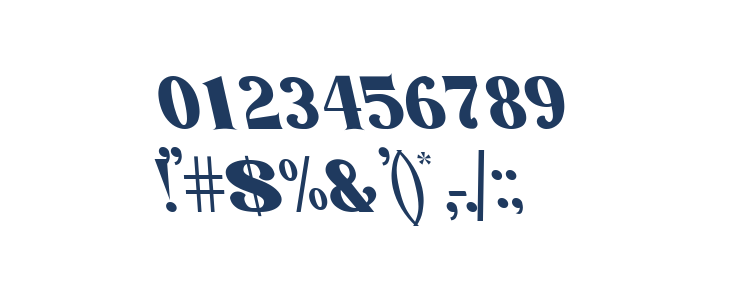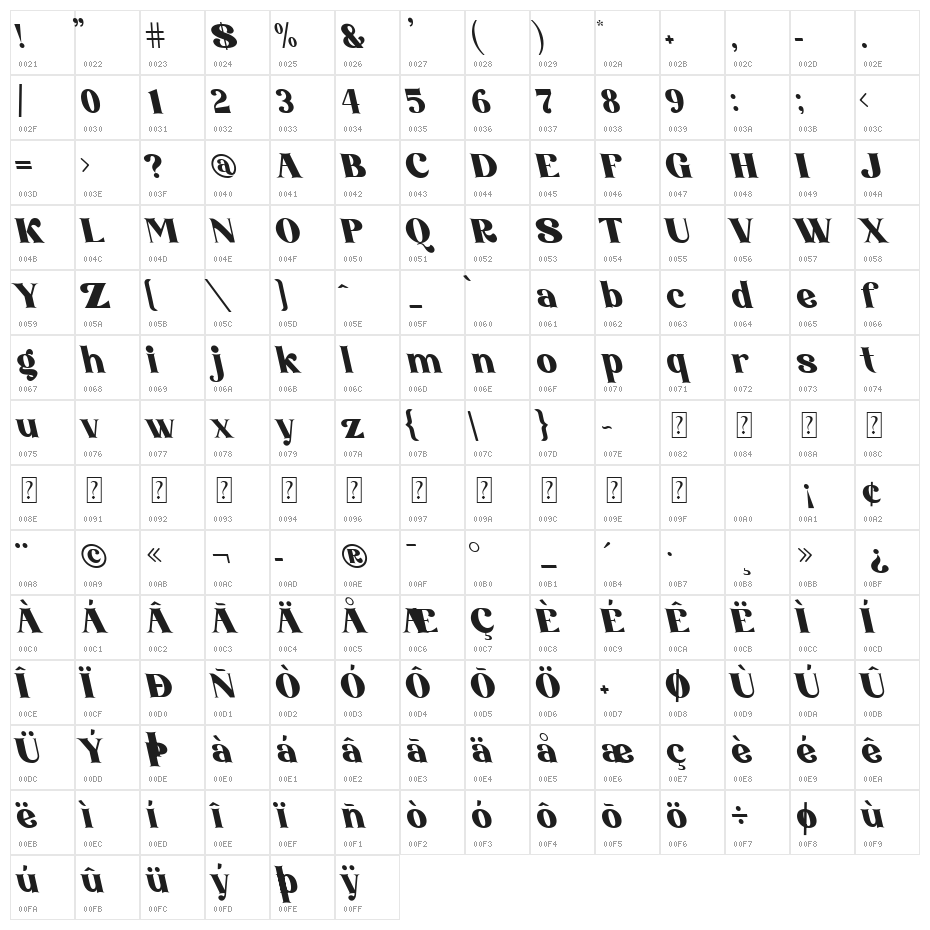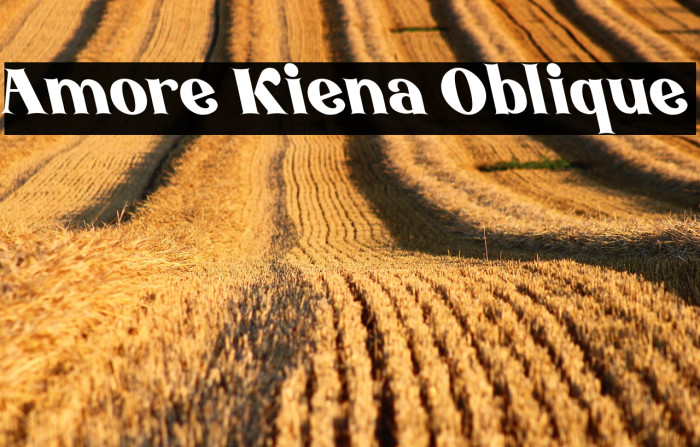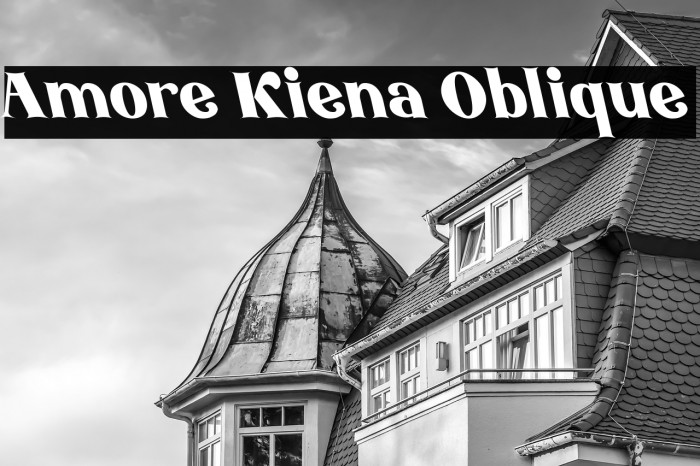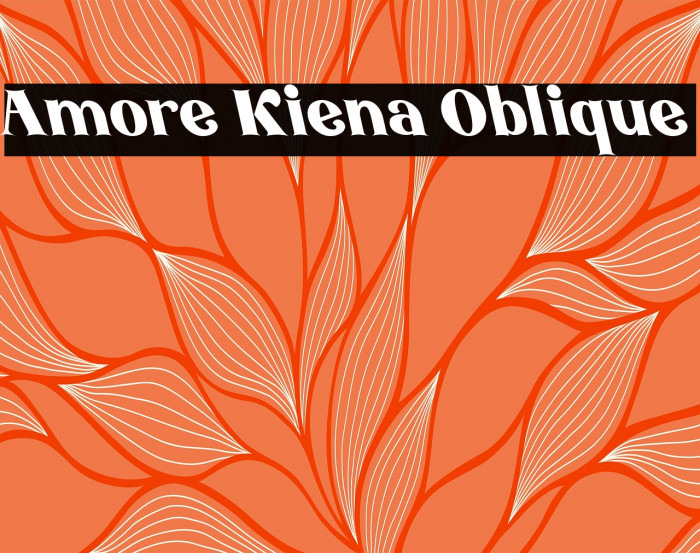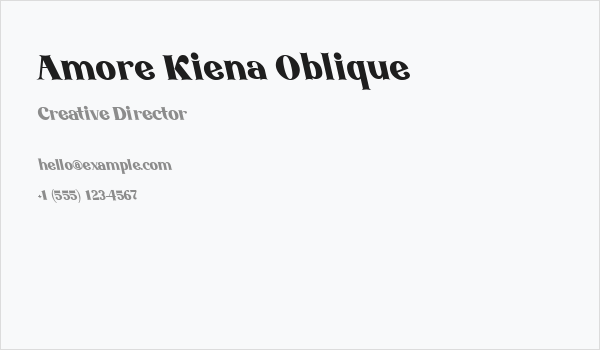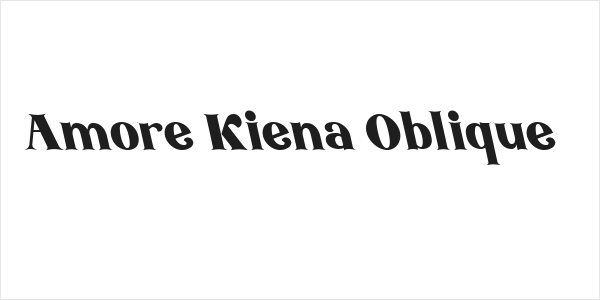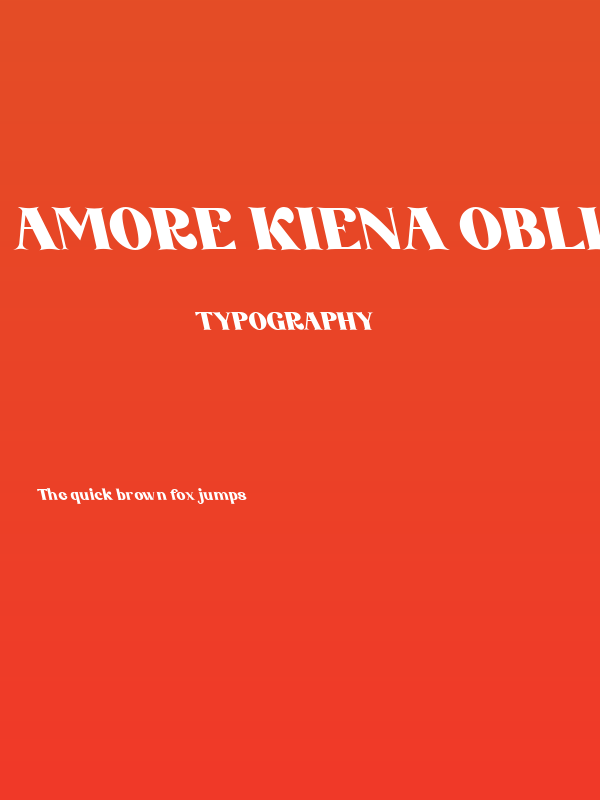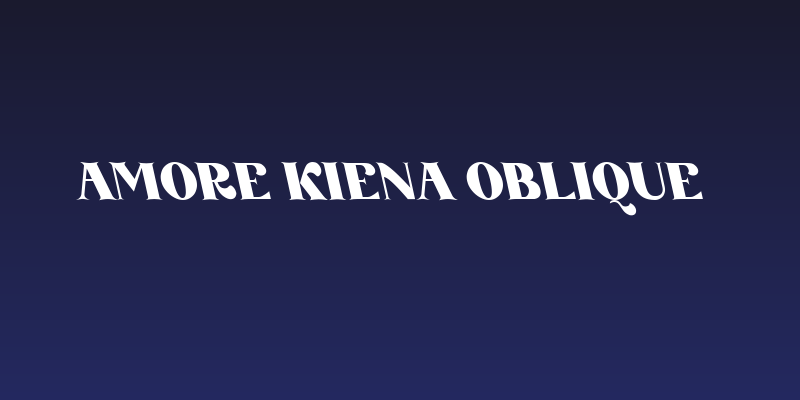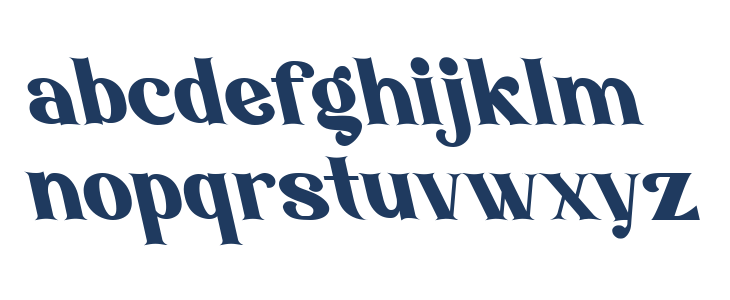
Amore Kiena Oblique Font
Amore Kiena Oblique Description
This font features a bold and dynamic style with a strong oblique slant, giving it a sense of movement and energy. The characters are thick and robust, with a high contrast between thick and thin strokes, adding to its dramatic appearance. The serifs are pronounced and angular, contributing to a sharp and modern aesthetic. The uppercase letters are particularly striking, with a wide stance that commands attention. The lowercase letters maintain the same boldness, ensuring readability while retaining the font's distinctive style. The numerals are equally bold, making them stand out effectively. Special characters are designed with the same attention to detail, ensuring consistency across the entire typeface.
| Proposed Projects | Ideal for headlines, posters, branding, and any project requiring a strong visual impact. |